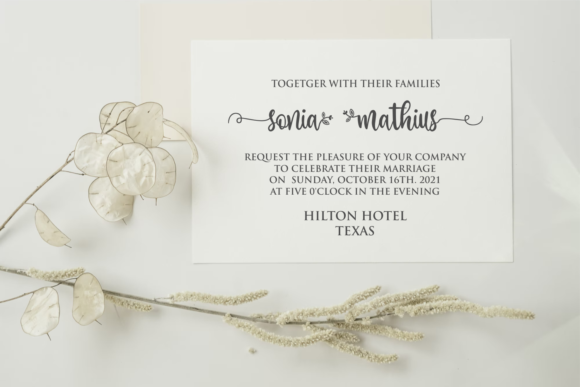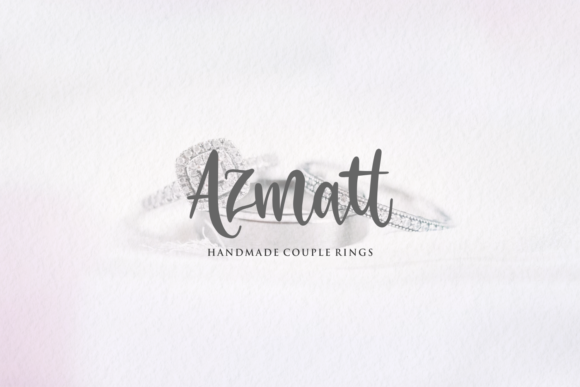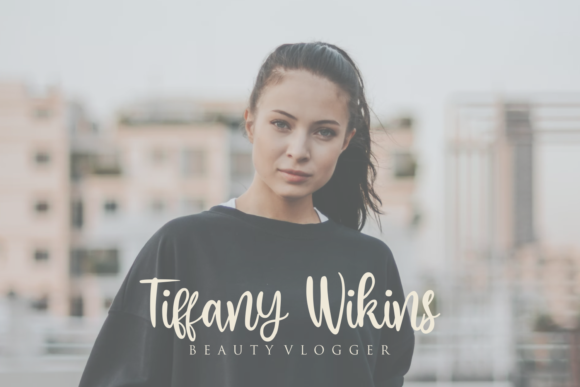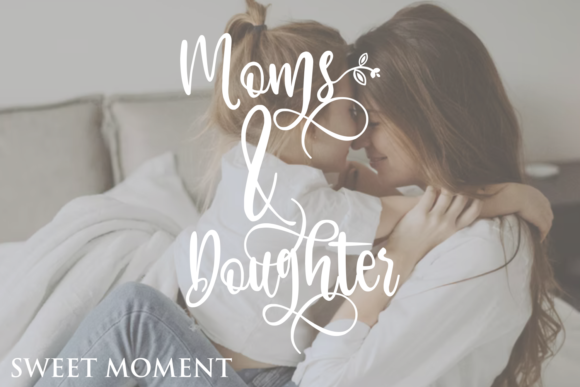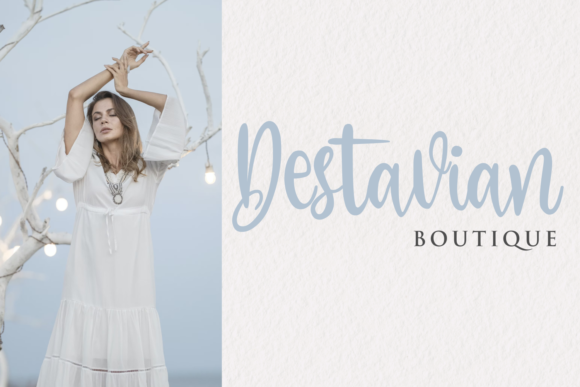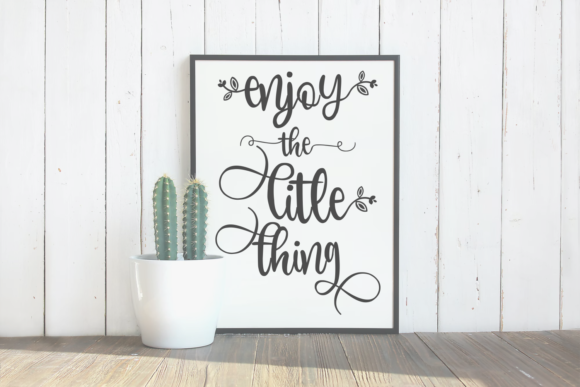
Cosmic Furry Font: Elevate Your Designs with a Touch of Trendiness and Versatility
In the realm of typography, a font can make or break the aesthetic of a design project. For those seeking a chic and refined script font that exudes trendiness and versatility, look no further than Cosmic Furry. This stylish font is meticulously crafted to cater to a wide array of design needs, making it the perfect match for any project. In this article, we’ll delve into the features, benefits, and potential applications of the Cosmic Furry font, exploring how it can elevate your designs to new heights.
The Essence of Cosmic Furry
Cosmic Furry is not just another script font; it’s a comprehensive typographic solution designed to infuse your projects with a unique blend of elegance and modernity. Its design is characterized by flowing lines, stylish alternates, and ligatures, which collectively contribute to its refined appearance. Whether you’re working on a branding project, a website design, or crafting beautiful printable art, Cosmic Furry offers the versatility to adapt and shine.
Key Features of Cosmic Furry
- Stylish Alternates and Ligatures: One of the standout features of Cosmic Furry is its inclusion of stylish alternates and ligatures. These typographic elements allow for a high degree of customization, enabling designers to add a personal touch to their work and achieve a more distinctive look.
- Trendiness and Versatility: Cosmic Furry’s design is deeply rooted in current typographic trends, making it an excellent choice for projects that require a modern aesthetic. Its versatility ensures it can be used across various mediums, from digital platforms to print materials.
- Easy to Read and Aesthetic: Despite its stylish and script nature, Cosmic Furry maintains a high level of readability. This balance between aesthetics and functionality makes it an ideal choice for designers who don’t want to compromise on beauty or legibility.
Applications of Cosmic Furry
The applications of Cosmic Furry are vast and varied, catering to the needs of designers, crafters, and businesses alike. Here are a few scenarios where Cosmic Furry can make a significant impact:
- Branding and Logotypes: Create a lasting impression with a unique and memorable brand identity. Cosmic Furry’s stylish and modern look makes it perfect for crafting logos and brand names that stand out.
- Website Design: Enhance the visual appeal of your website with a font that communicates elegance and professionalism. Cosmic Furry can be used for headings, titles, and even body text, depending on the desired effect.
- Social Media Graphics: Make your social media posts and stories more engaging with eye-catching typography. Cosmic Furry can add a touch of personality and sophistication to your digital content.
- Printables and Crafts: For crafters and DIY enthusiasts, Cosmic Furry can be used in a variety of printables, such as planners, journals, and greeting cards, adding a personalized and trendy touch to your creations.
How to Use Cosmic Furry Effectively
To make the most of Cosmic Furry, consider the following tips:
- Mix and Match: Don’t be afraid to experiment with the font’s alternates and ligatures. Mixing and matching these elements can help you achieve a unique look that sets your design apart.
- Pair it Wisely: The right font pairing can enhance the overall aesthetic of your design. Consider pairing Cosmic Furry with a simpler sans-serif font for body text to create a balanced look.
- Adjust Size and Color: Play with the size and color of Cosmic Furry to create visual hierarchy and emphasis in your designs. This can help guide the viewer’s eye and enhance the overall impact of your work.
| Author | zamjump |
Cosmic Furry is more than just a font; it’s a design tool that offers a blend of trendiness, versatility, and elegance. Its stylish alternates and ligatures, combined with its readability and aesthetic appeal, make it an excellent choice for a wide range of design projects. Whether you’re a professional designer or a crafting enthusiast, Cosmic Furry has the potential to elevate your work and help you achieve your creative goals.
So, why settle for ordinary when you can add a cosmic touch to your designs? Explore the possibilities of Cosmic Furry today and discover how this chic, refined script font can transform your projects into something truly special.